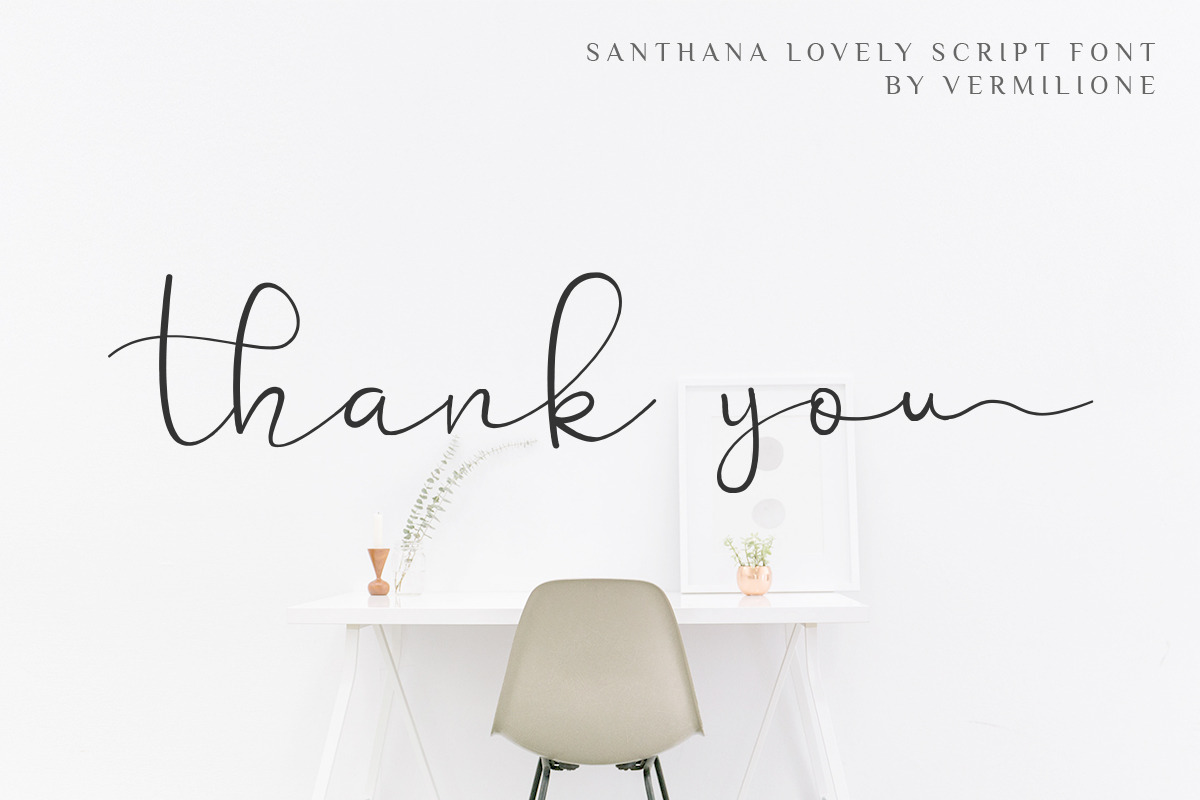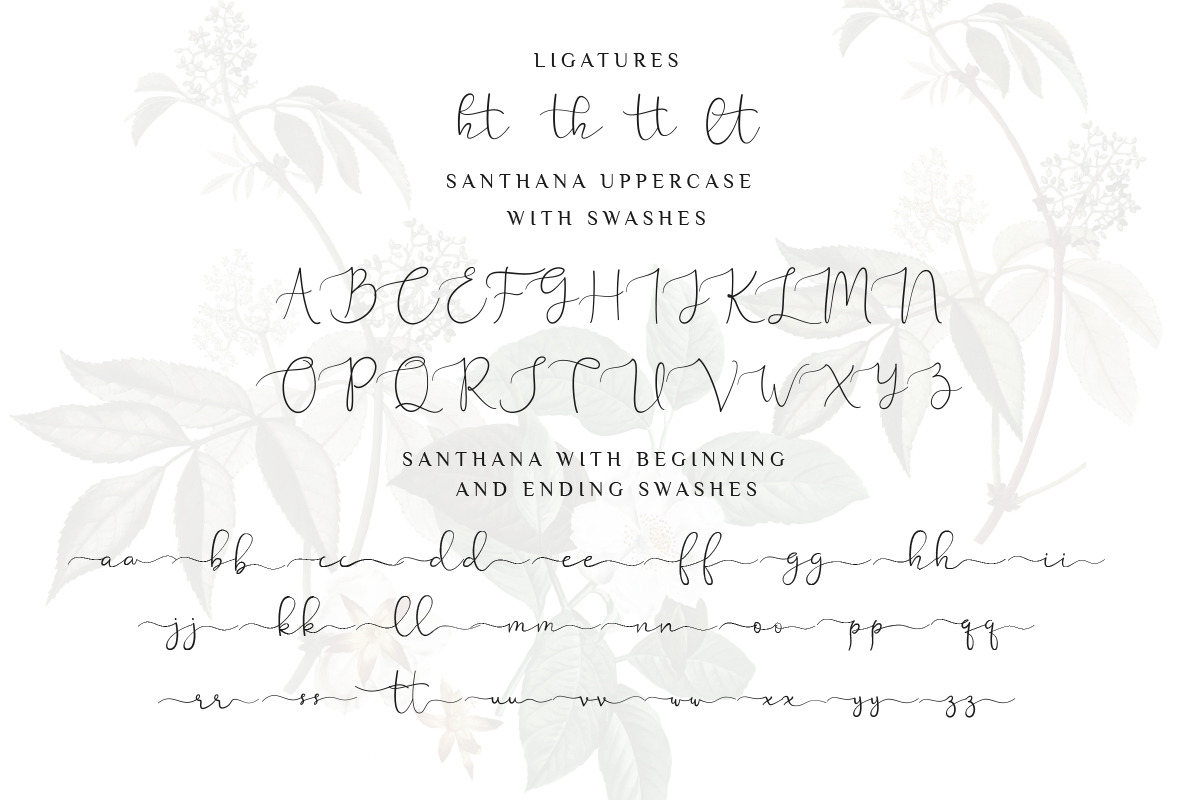
Santhana lovely script
Santhana a lovely script font
Santhana a lovely script font is perfect for elegant logos, upscale packaging, wedding stationery, photography, websites, quotes, and any other requiring projects a handwritten and luxurious touch. A wide range of swashes and a custom logo, a hand calligraphy look.
Santhana Features :
- Full Set of standard alphabet and punctuation
- Extra set of beginning swashed capitals
- Extra set of beginning and ending swashed lowercase
- Multilingual Support (other languages)